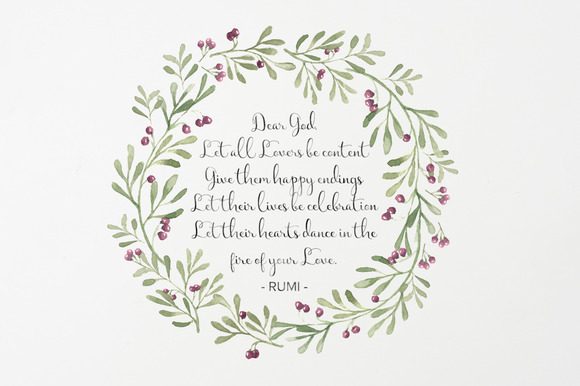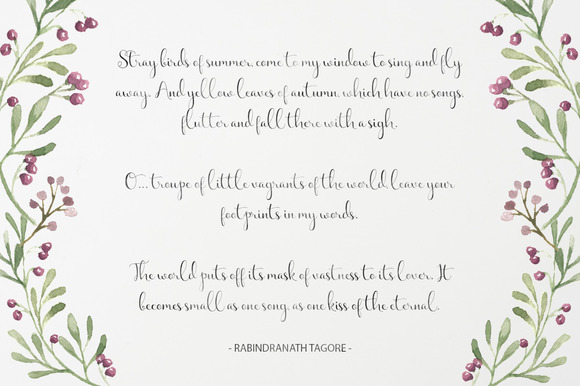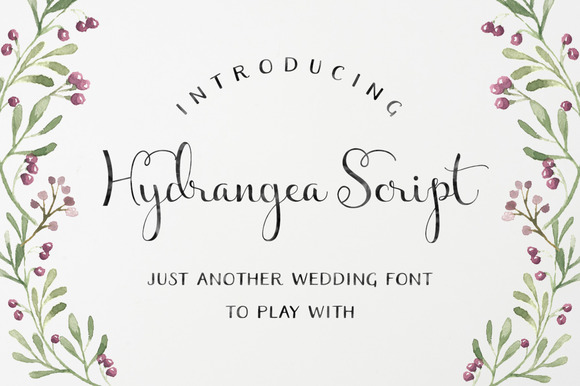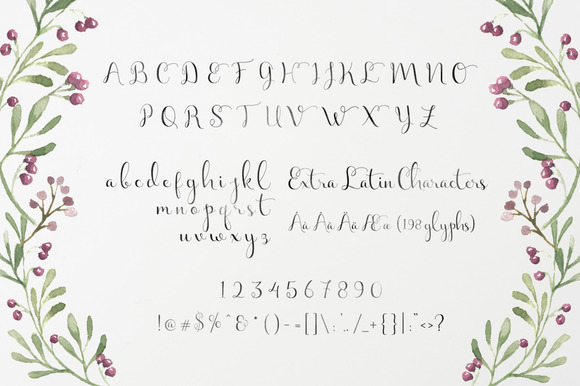
Hydrangea Script – Wedding Font
Hydrangea Script – Regular. Just another script font with a clean calligraphy feel for wedding invitation design, logo, cards, etc. Please follow Creative Market simple license.